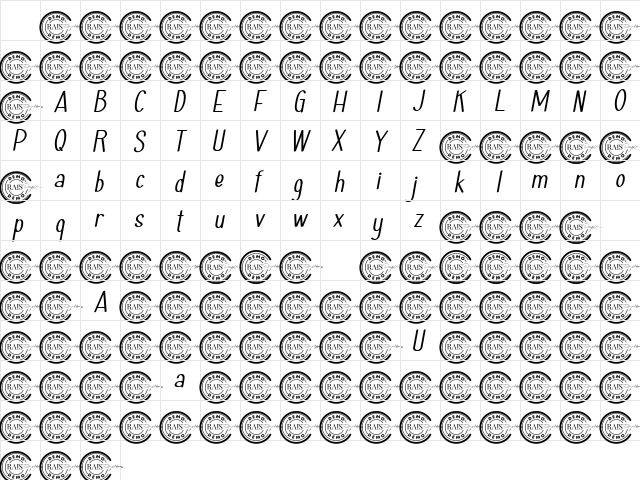
Haiesley Sans Demo is a composed and adaptable typeface that performs quietly and consistently across a wide range of design contexts. The slanted form adds forward momentum and visual energy.
Pro Tip: Use Haiesley Sans Demo for emphasis, pull quotes, and subheadings where its slanted energy can add rhythm to the layout.